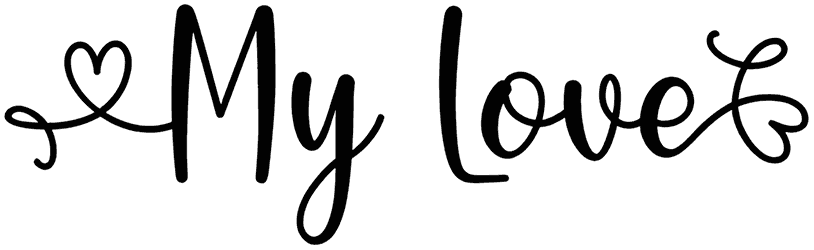
My Love Font
Let your words be clear about the sentimental aspect of your design by borrowing the nice attitude of My Love, and you’ll see why you need more heart fonts like this in your personal collection.
Whether it’s children you want to spoil with a sweet tone in HBD posters or your close friends and partner who you want to show appreciation for in greeting cards and stickers, this love font lets everyone know about your pure emotions. How awesome is that?